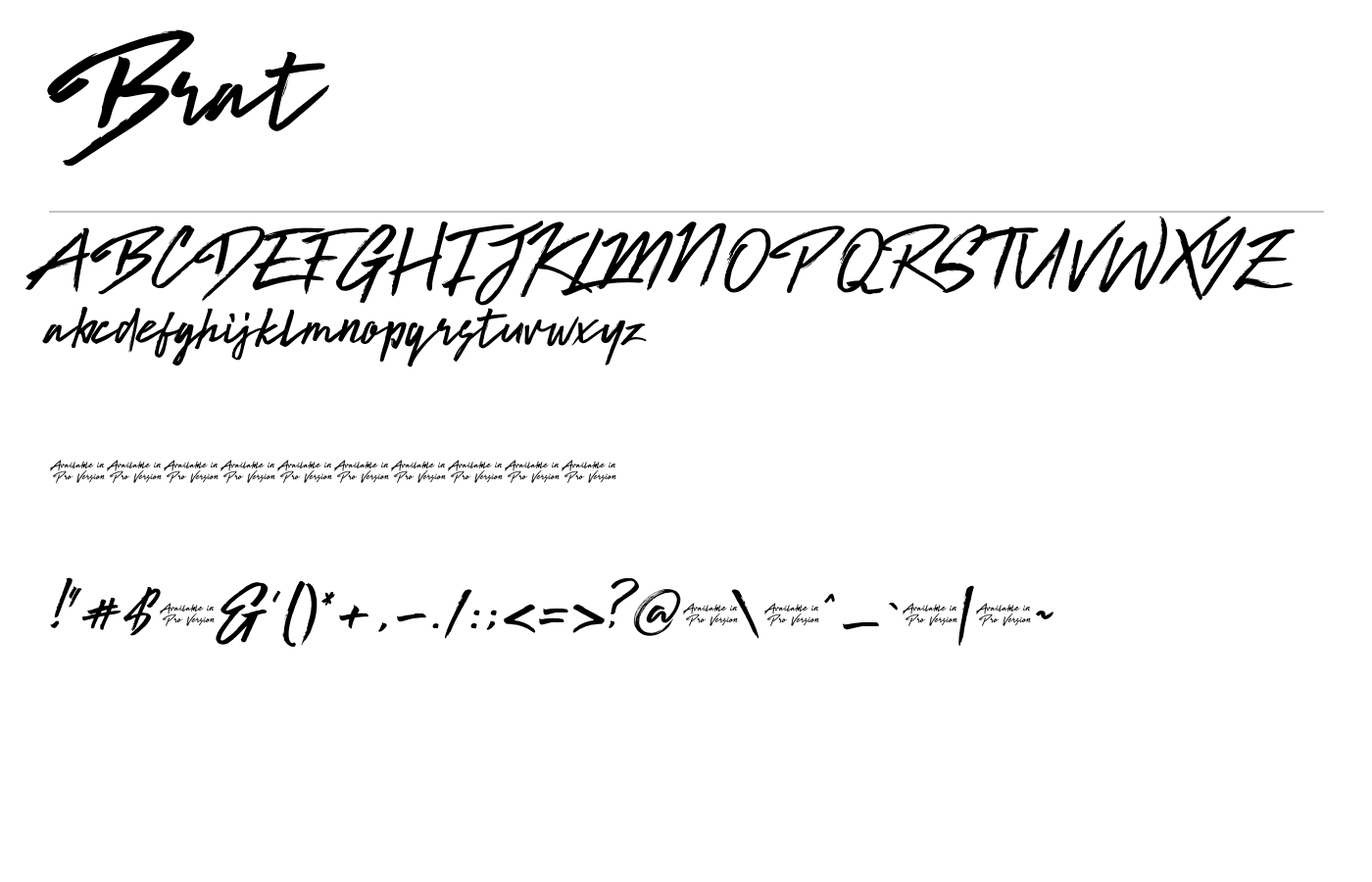
Brat Font is a dynamic and lively script typeface with a bold, handwritten style that captures a sense of energetic spontaneity. Its sharp, angular strokes and slightly condensed forms give it a modern yet personal touch, making it ideal for creative branding, eye-catching headlines, and edgy designs that want to convey confidence and individuality. This font works especially well in fashion, lifestyle, and artistic projects where a distinctive, informal voice is desired.
Brat Font
About Brat Font
| Font family | Brat Font |